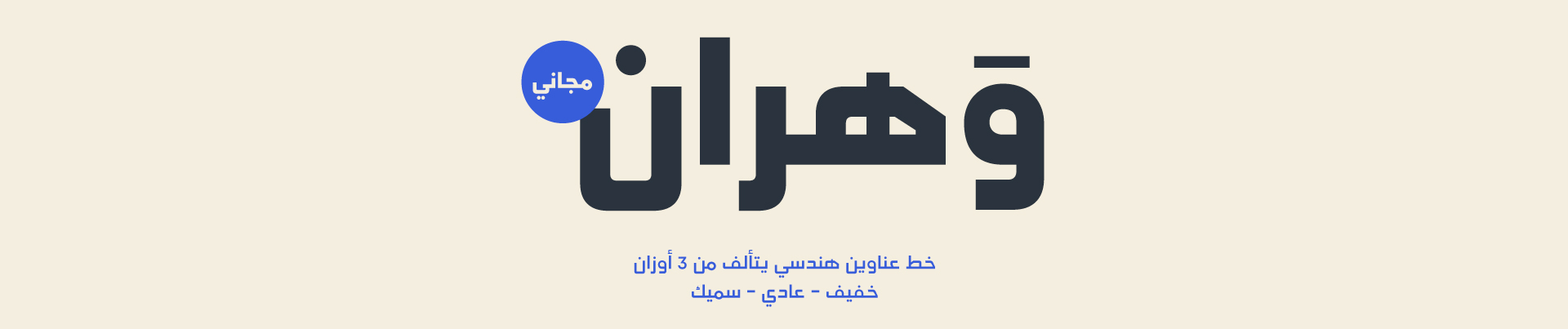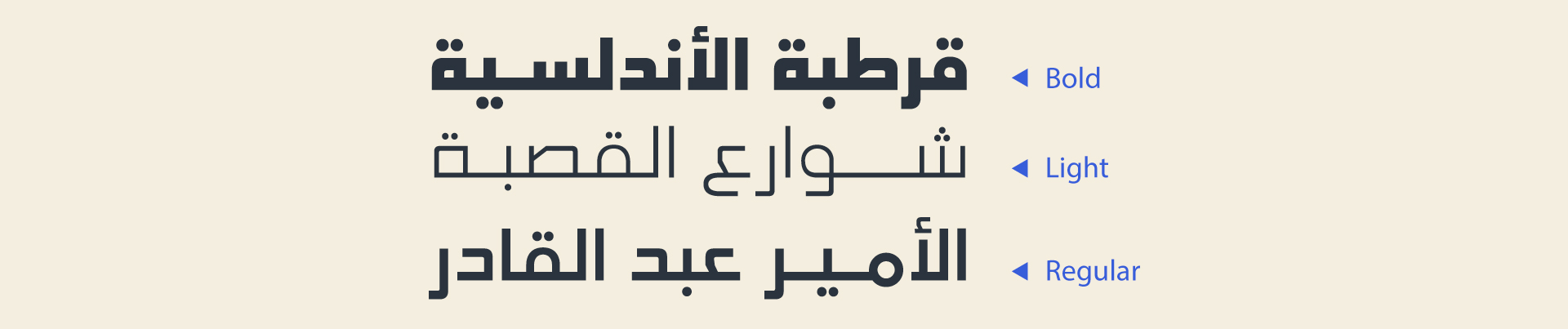
About Wahran Font:
Wahran is a simple Kufic font that is derived from the rules of traditional Kufic script.
Weights and Languages:
It consists of 3 Weights. It supports Arabic.
Usages:
Wahran font is used in headlines, social media posts & books.
Designing:
TSfonts Type Studio
Hind Djafer